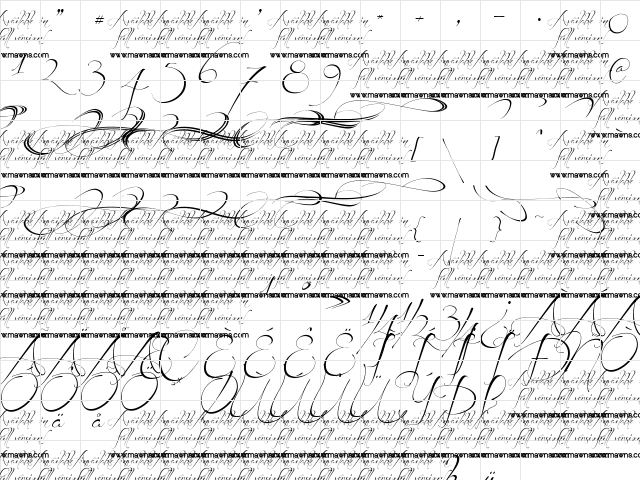
Before the Rain Swashes DEMO Regular Font Preview
Before the Rain Swashes DEMO Regular
Before the Rain Swashes DEMO Regular Font Details
| Foundry | M害 Greb䣫 |
| Designer | M害 Greb䣫 |
Design Context for Before the Rain Swashes DEMO Typeface
Before the Rain Swashes DEMO flows with the natural rhythm of handwritten lettering, making it ideal for designs that call for warmth and personal expression.
Font Pairing: Combine Before the Rain Swashes DEMO with a simple geometric sans for maximum contrast — the tension between flowing curves and clean structure is a classic typographic pairing.
Pro Tip: Pair Before the Rain Swashes DEMO with a clean sans-serif for supporting text. The contrast between fluid script and geometric structure creates an elegant typographic hierarchy.